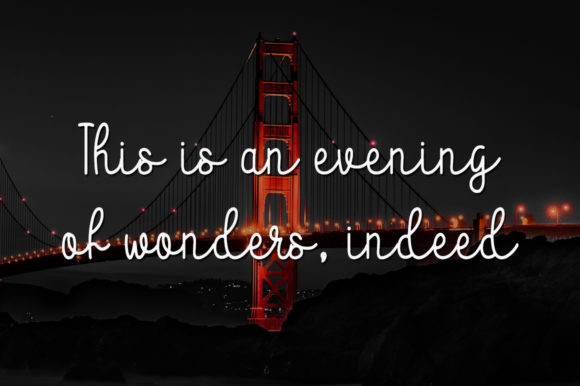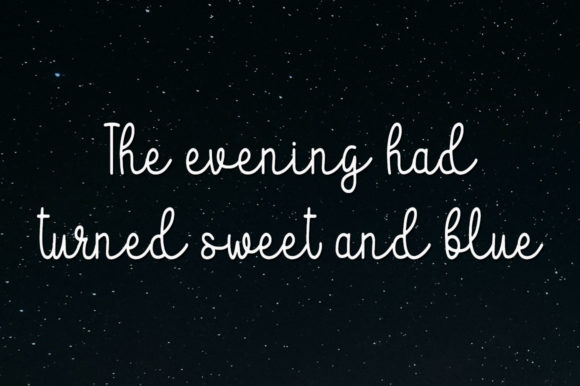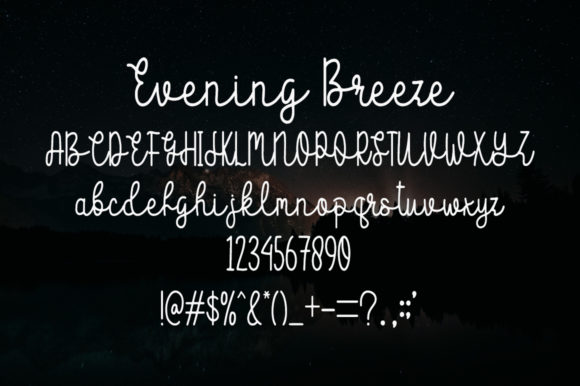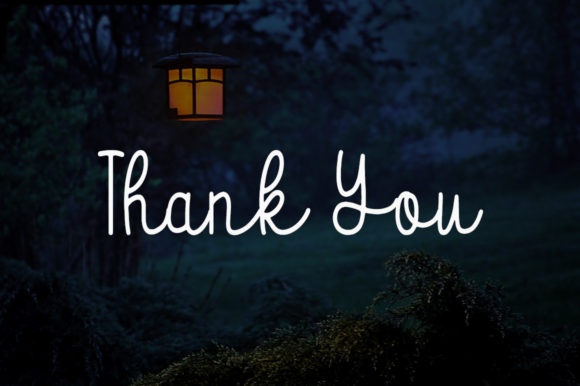
The Evening Breeze Font: A Designer’s New Best Friend
I’ll never forget the time I was working on a project for a client who wanted a elegant and simple handwritten font. I had spent hours scouring the internet for the perfect one, but nothing seemed quite right. That was until I stumbled upon the Evening Breeze font. It was like a breath of fresh air (pun intended)! The perfect balance of simplicity and elegance, this font has become a staple in my design toolkit.
So, what makes the Evening Breeze font so special? Let’s dive in!
- ✨ Simple and elegant design that’s perfect for a variety of projects
- ✅ Balanced and varied strokes that add visual interest
- 💫 Not too thin and not too thick – just right!
- 🎉 Perfect for both digital and print projects
While the Evening Breeze font is amazing, there are a few things to keep in mind:
- 🤔 Some users may find the font a bit too casual for very formal projects
- ⚠️ Limited availability of certain OpenType features
Exploring OpenType Features
One of the best things about the Evening Breeze font is its OpenType features. Here are a few tips for getting the most out of these features:
- Use glyphs to add visual interest to your text
- Experiment with stylistic alternates to create a unique look
- Take advantage of ligatures to improve text flow
The Story Behind Evening Breeze
The Evening Breeze font was designed with the intention of creating a simple yet elegant handwritten font. The designer wanted to create a font that was balanced and varied, with a unique personality. The result is a font that’s perfect for a wide range of projects, from digital designs to print materials.
Q: What is the Evening Breeze font?
A: The Evening Breeze font is a simple and elegant handwritten font designed for a wide range of projects.